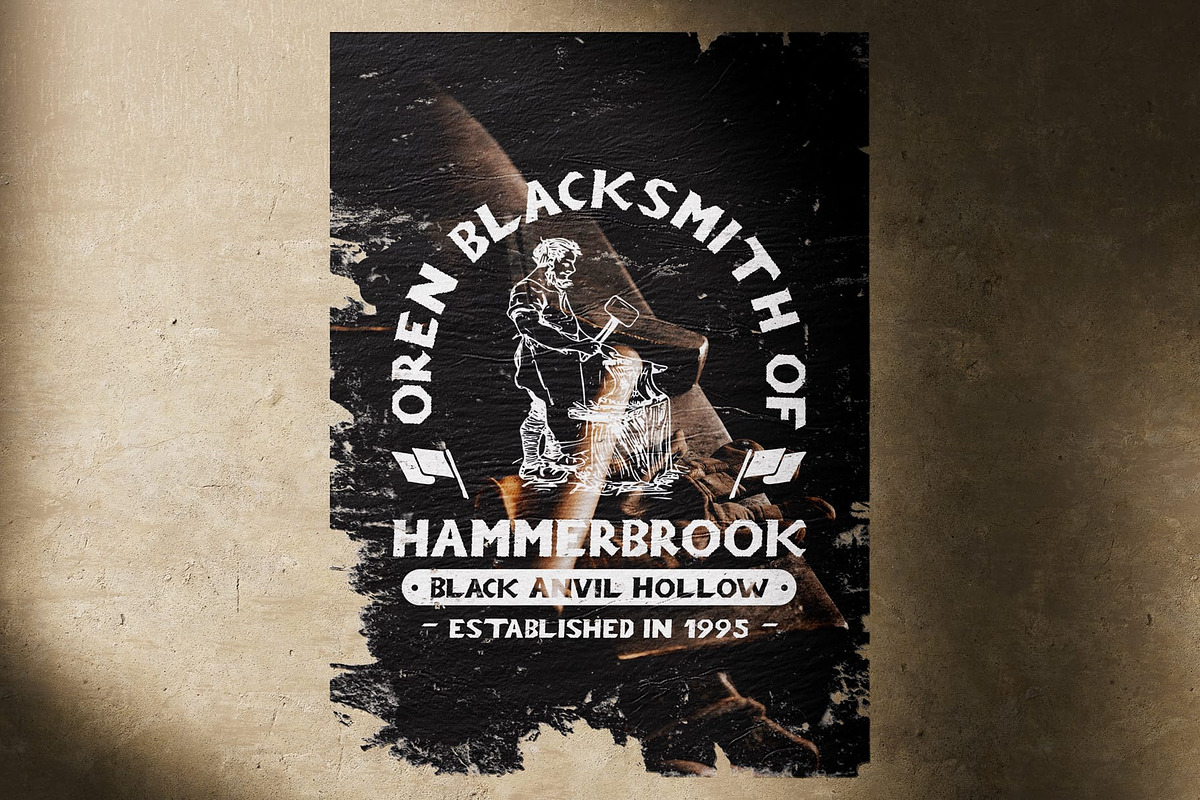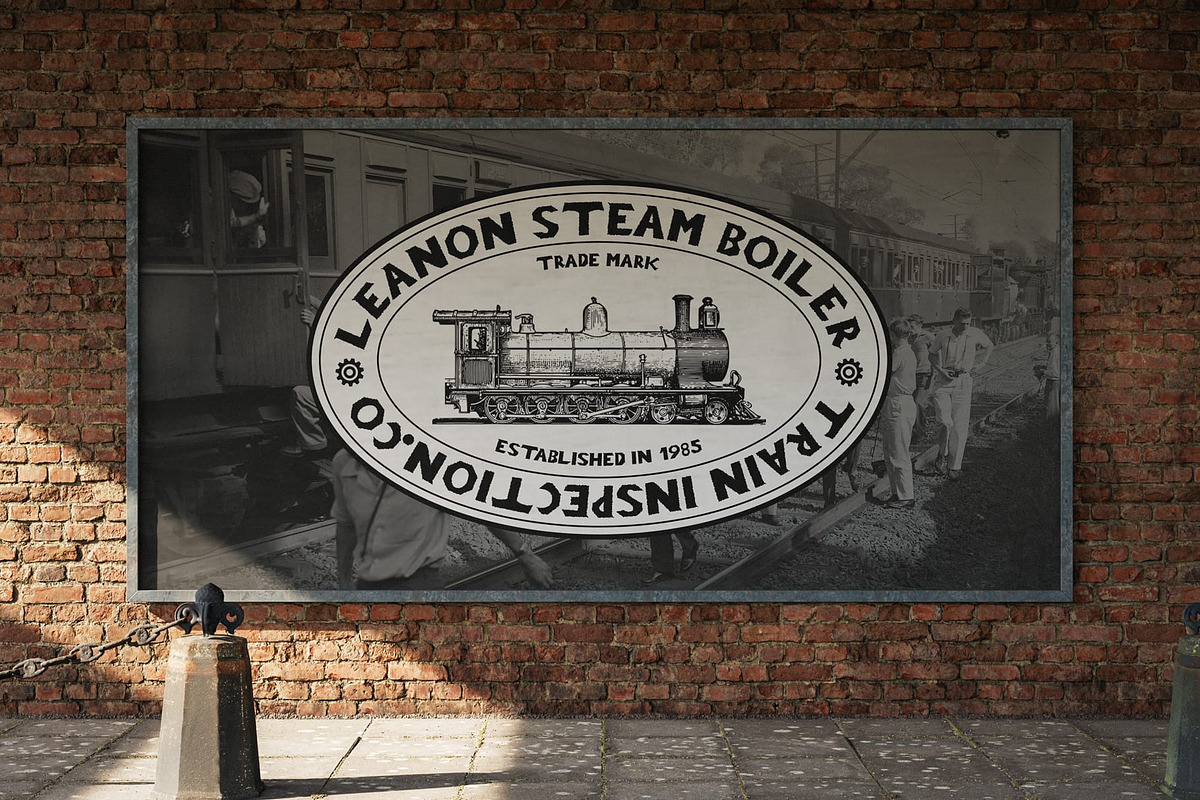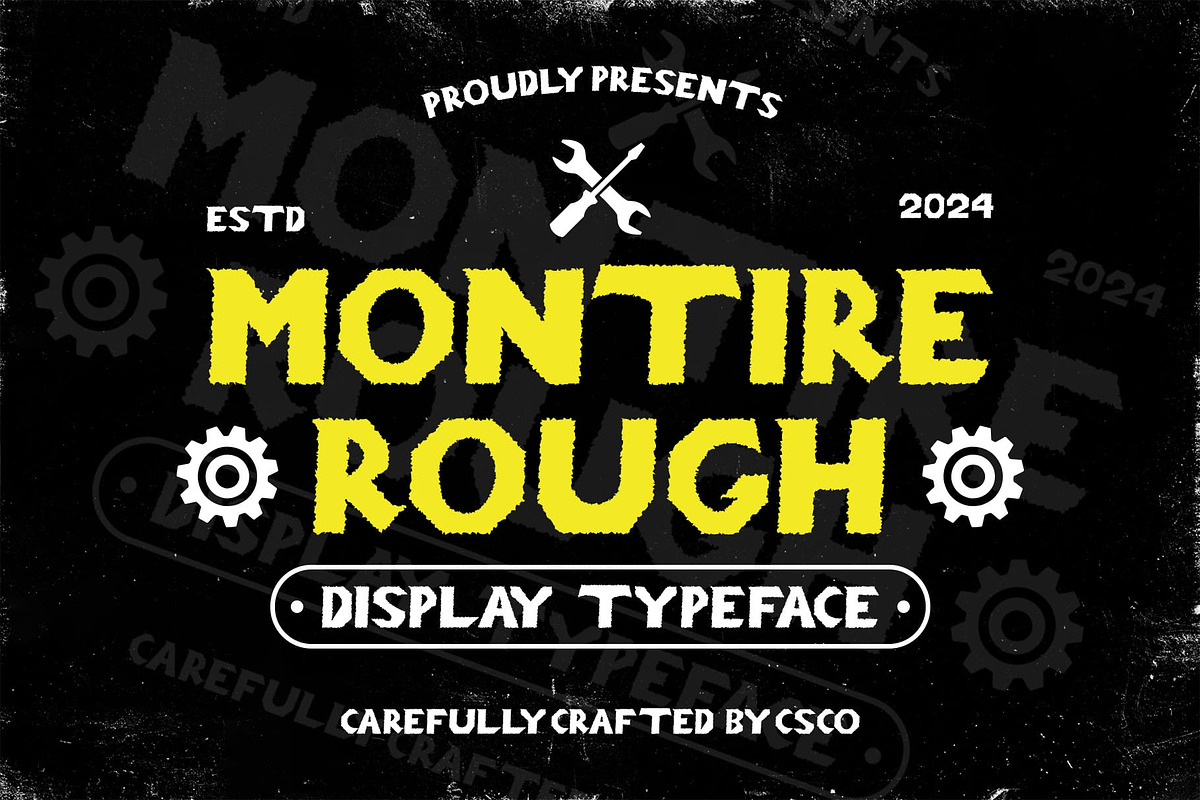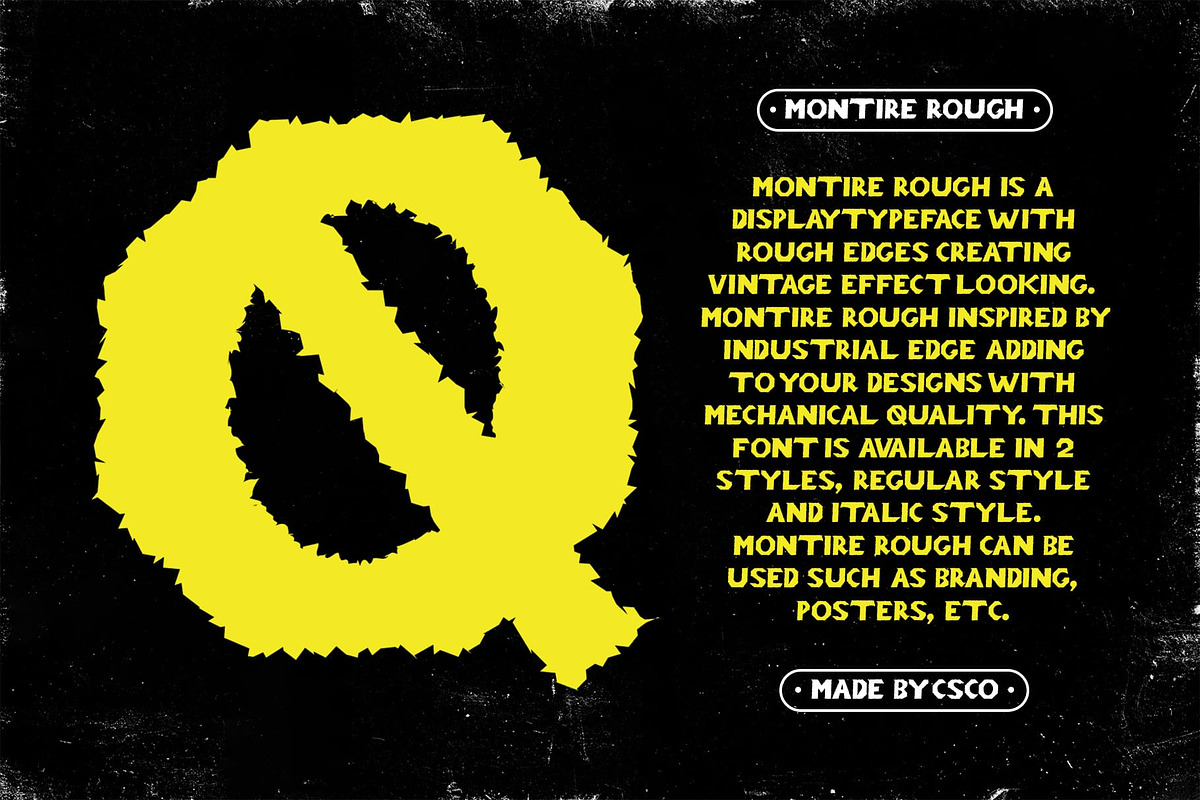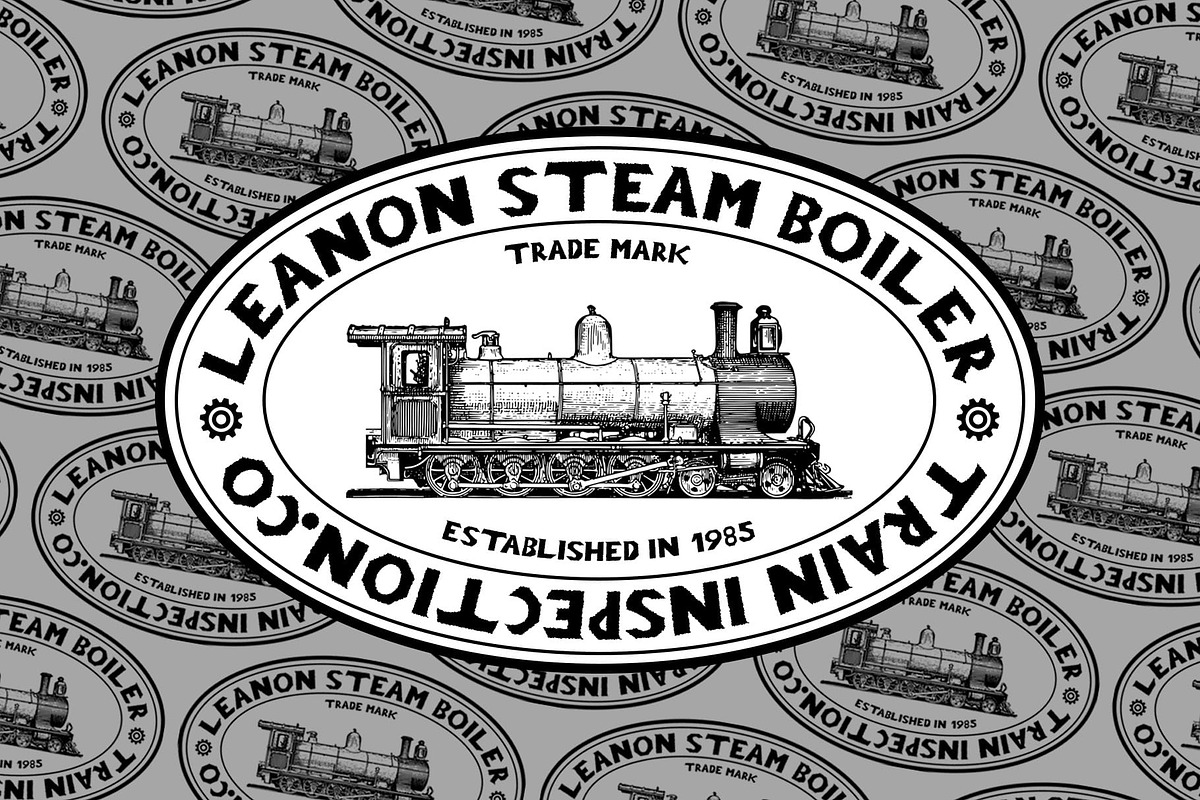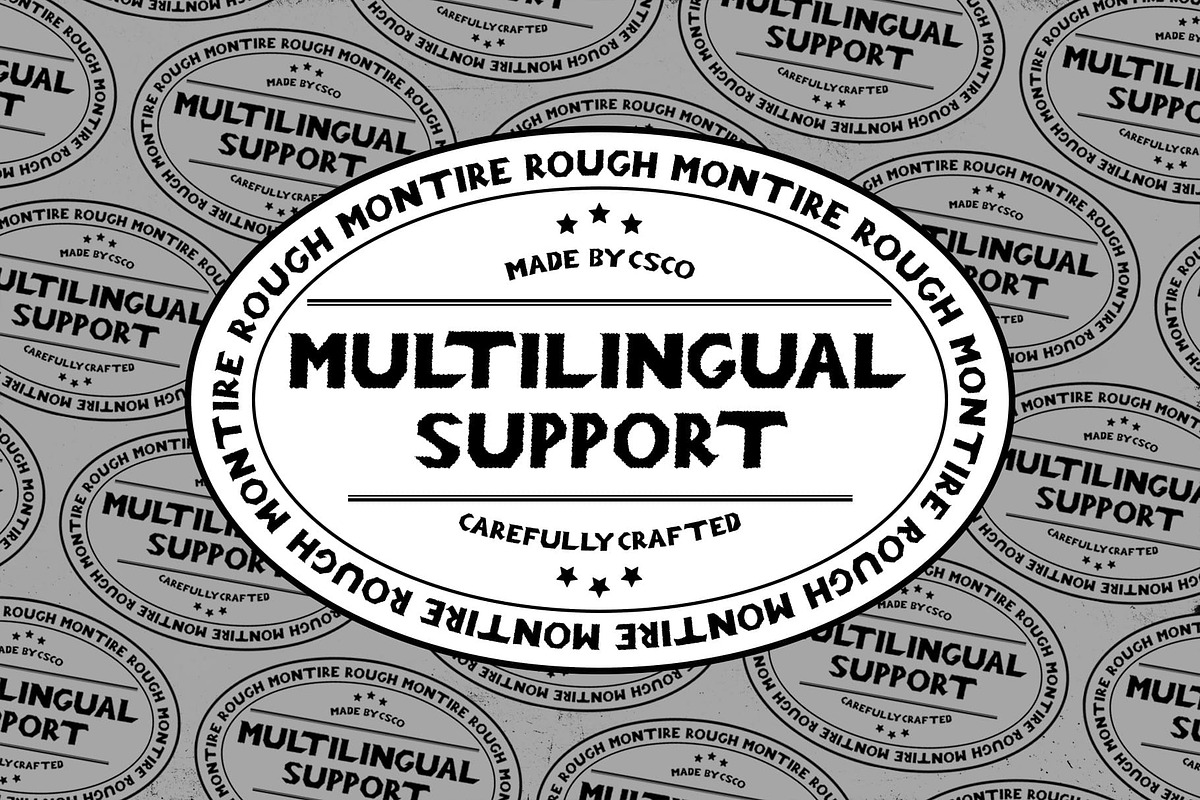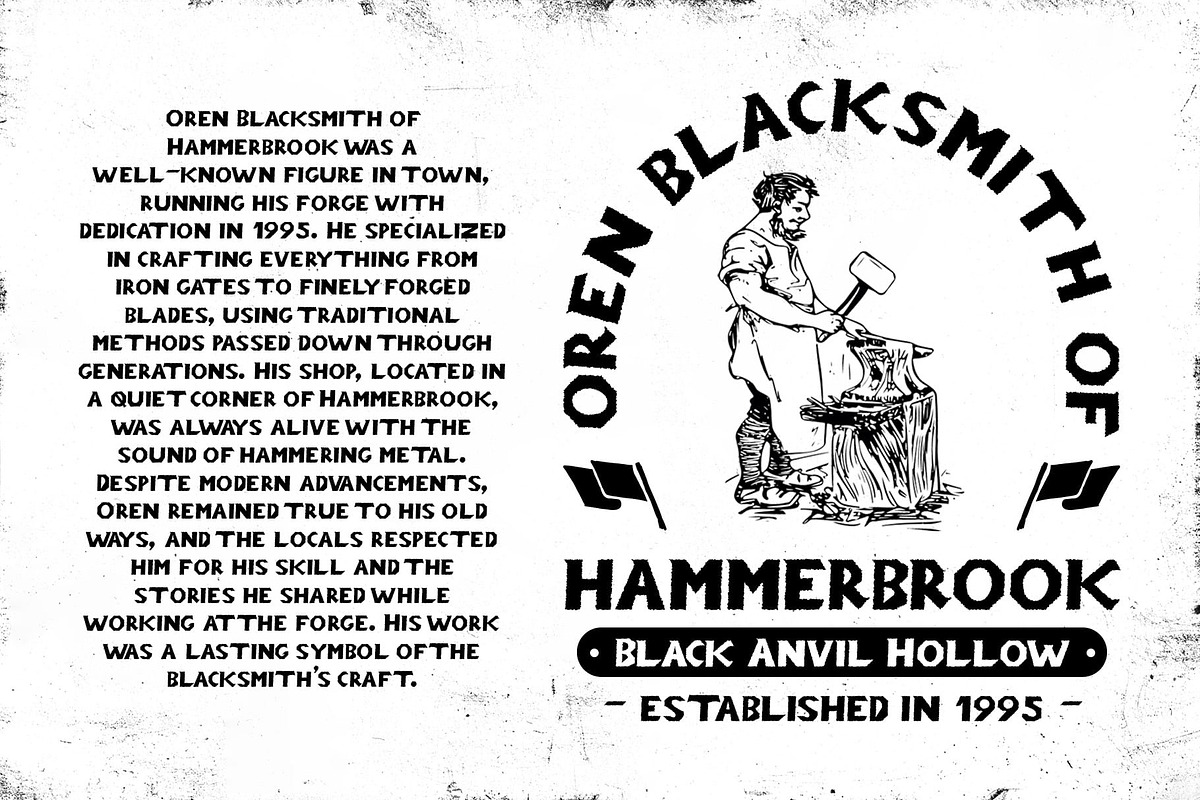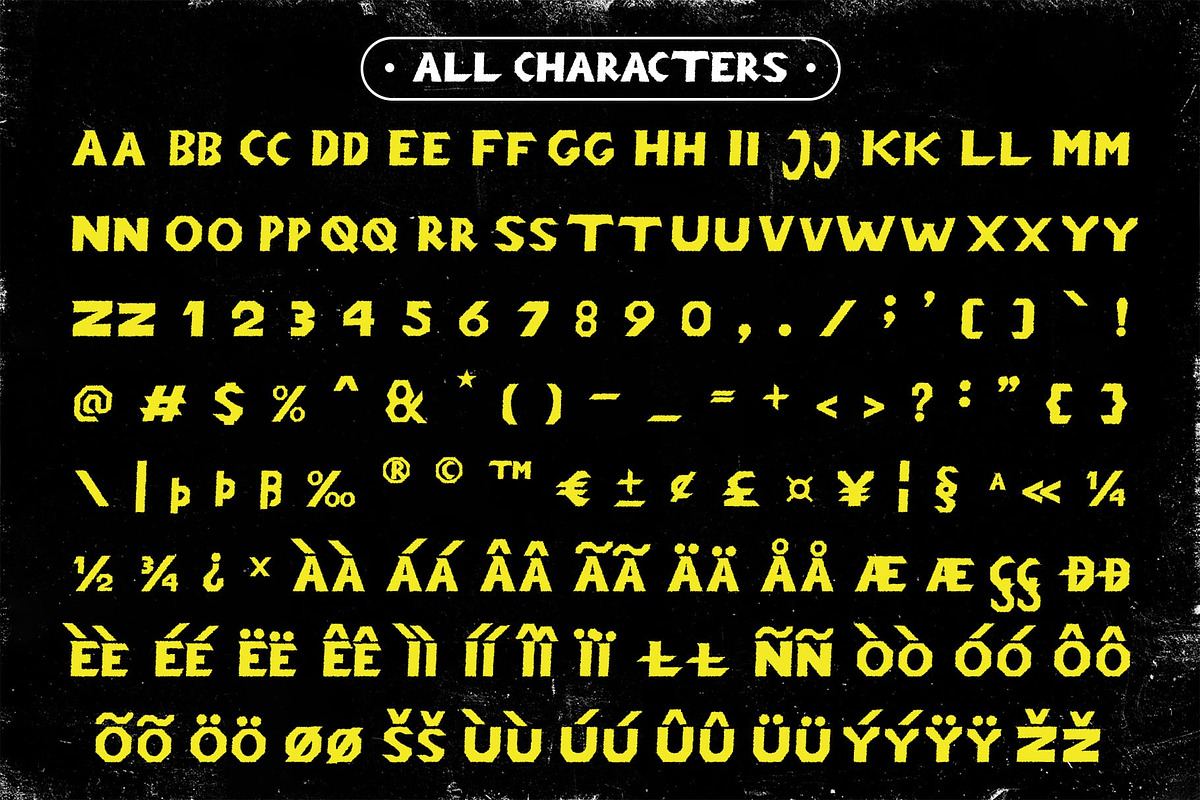
Montire Rough
Montire Rough Font: A Bold Industrial Serif Font
Strength and Resilience in Design Montire Rough is a bold serif font that embodies industrial design with its strong and assertive characteristics. This robust typeface creates a daring impression, making it the perfect choice for projects that demand attention and convey resilience. Its striking presence is rooted in structural elements inspired by architecture and machinery, offering a modern and functional aesthetic that resonates with contemporary design sensibilities.
Architectural Inspiration The design of Montire Rough showcases meticulous attention to detail, reflecting the solidity of architectural forms and the precision of industrial machinery. Its bold lines and well-defined edges not only enhance legibility but also contribute to a sense of strength and reliability. This font is ideal for projects that seek to communicate durability and toughness, making it a versatile choice for various applications.
Dynamic Texture and Engaging Appeal What sets Montire Rough apart is its layered rough effect, which adds depth and texture to each character. This unique feature brings personality to the font, resulting in a more engaging and dramatic appearance. The interplay of smooth and rough elements creates visual interest, ensuring that your designs stand out while maintaining a professional edge.
- Montire Rough Regular
- Montire Rough Italic